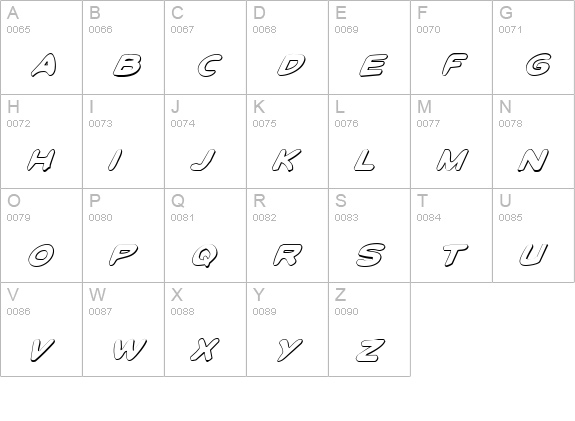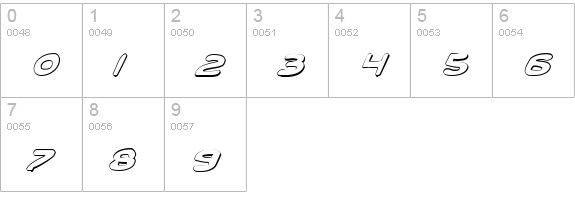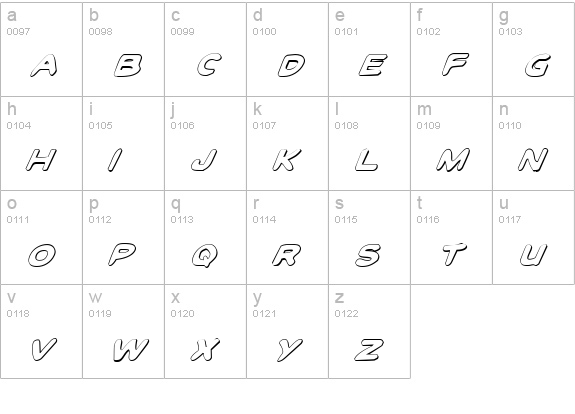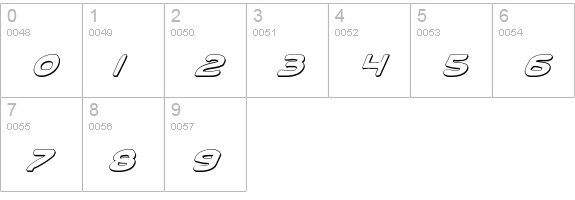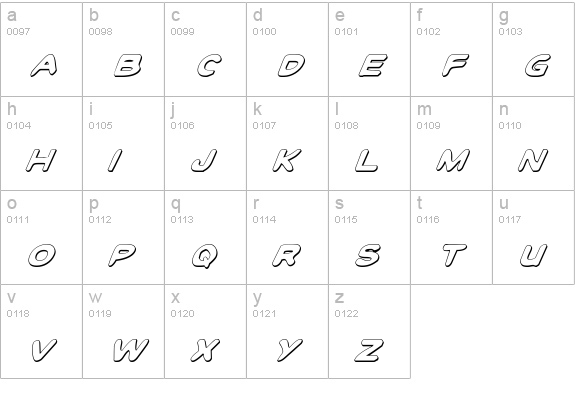
Toon Town Industrial Shad Ital font is a whimsical and playful typeface that perfectly captures the essence of a bustling and vibrant city. Its unique design combines bold and thick strokes with a slight slant, adding a touch of dynamism and modernity to any project. This font is the perfect choice for those looking to add a fun and lively twist to their designs. Whether you're creating a logo, poster, or website, Toon Town Industrial Shad Ital will instantly grab attention and inject a dose of creativity into your work. Its distinctive style is reminiscent of classic cartoons, making it ideal for children's books, comics, or any project that calls for a touch of nostalgia. One of the best aspects of Toon Town Industrial Shad Ital font is that it is freely available to download at FontsMarket.com. This means that you can easily access and use this font without any cost or restrictions. With its wide range of characters, including uppercase, lowercase, numbers, and symbols, this font offers versatility and flexibility for all your creative needs. So, if you're looking to add a playful and eye-catching element to your designs, Toon Town Industrial Shad Ital font is the perfect choice. Download it for free at FontsMarket.com and unleash your imagination with this delightful and captivating typeface.